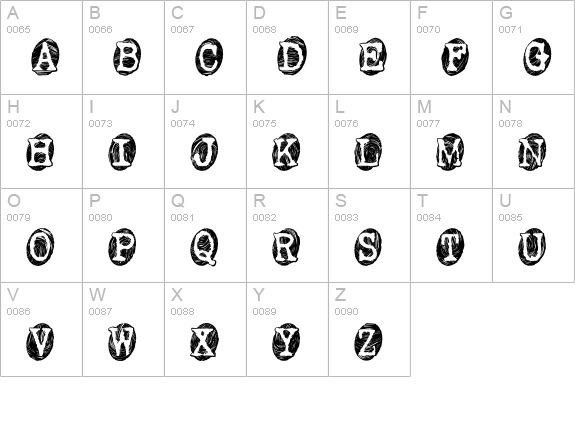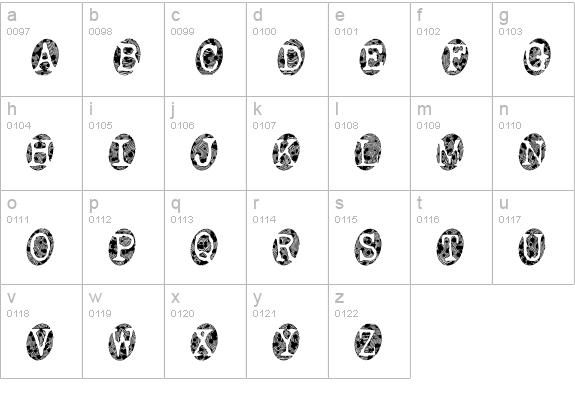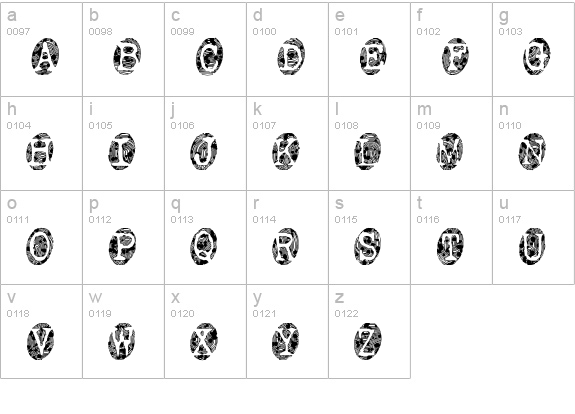
Powderfinger Smudged Font Details
Powderfinger Smudged font is a unique and artistic typeface that exudes a sense of creativity and individuality. Its smudged effect gives it a handcrafted and edgy appearance, making it perfect for projects that require a touch of rawness and character. The uneven lines and distressed look of this font add a sense of depth and intrigue to any design it is used in. What makes Powderfinger Smudged font even more appealing is that it is available for free download at FontsMarket.com. This means that you can easily access this striking font without any cost, allowing you to enhance your projects with a distinctive and eye-catching typography without breaking the bank. Whether you are working on a poster, logo, flyer, or any other design project, Powderfinger Smudged font is sure to make a statement and leave a lasting impression. Download it for free today and elevate your designs with its unique charm and personality.